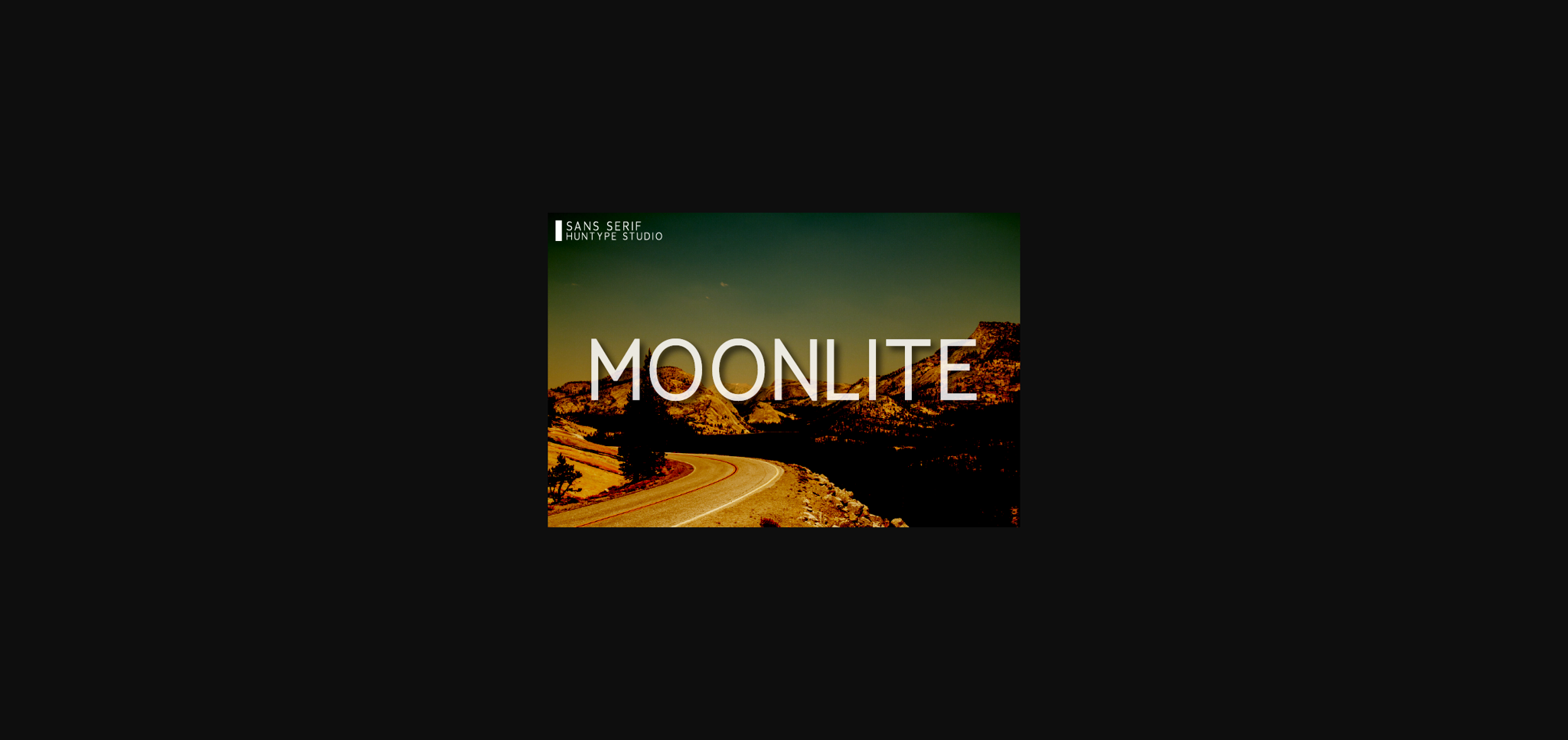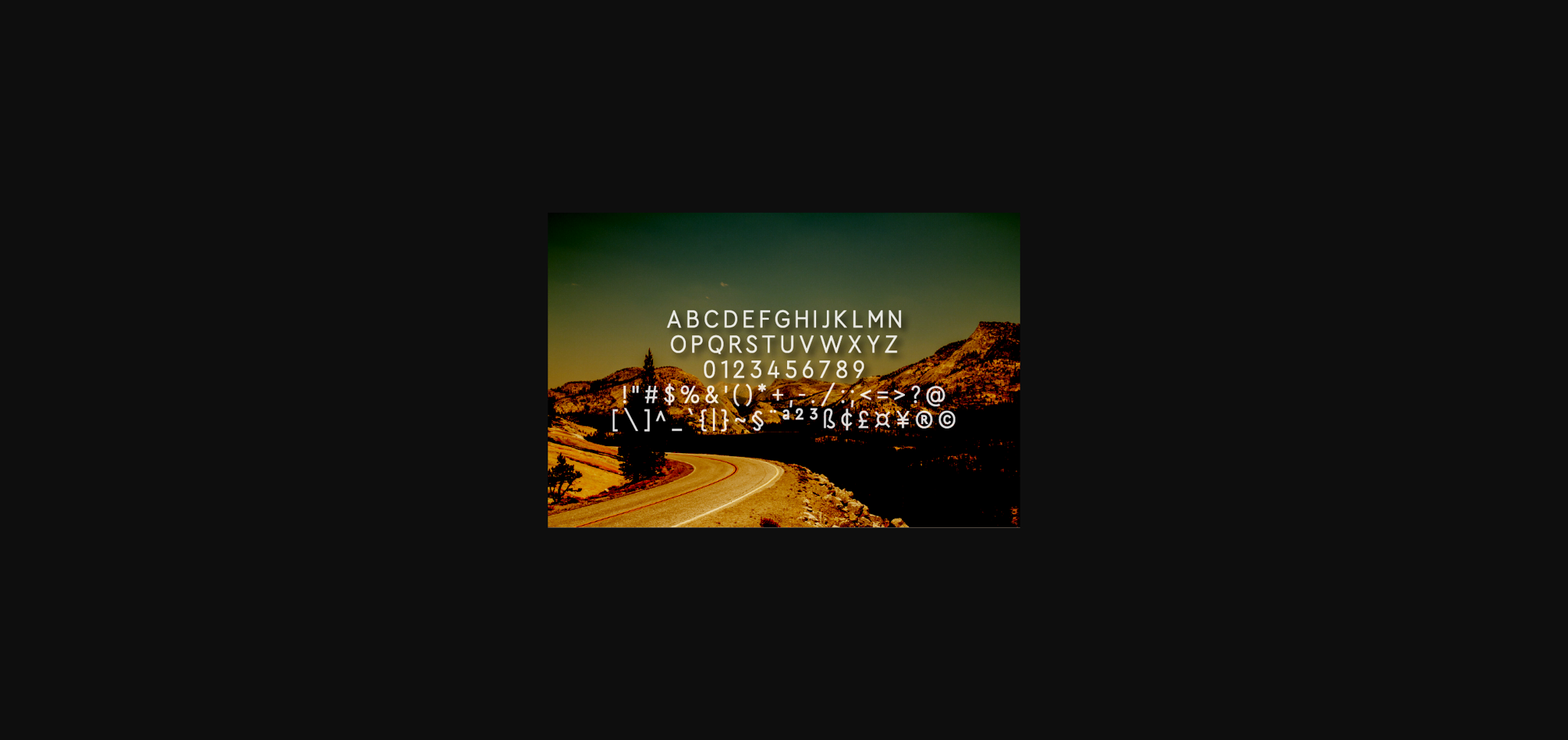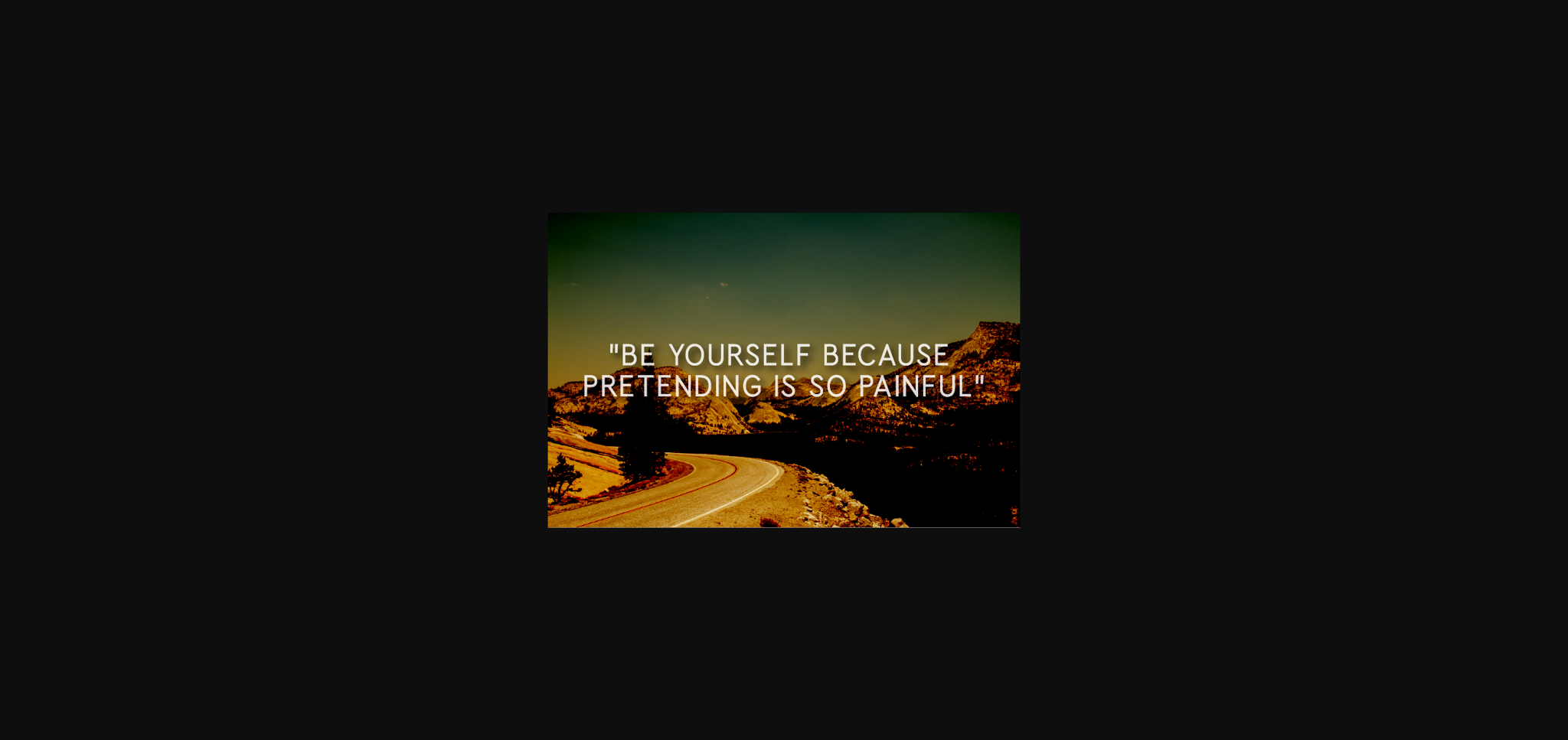
Moonlite is a simple and casual sans serif font with an undeniably clean feel. With its neat and beautiful arrangement of letters, this typeface will look outstanding in both formal and non-formal designs.